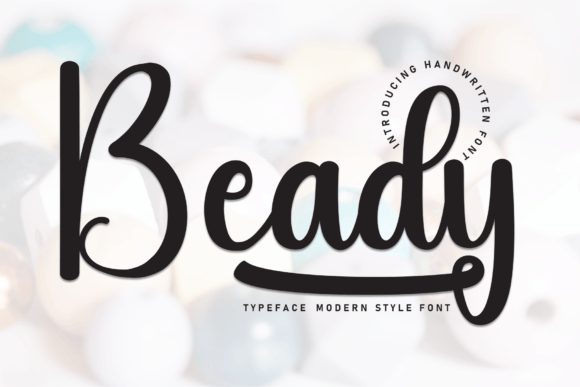
Unleash the Charm and Playfulness of Beady Font: Where Whimsy Meets Elegance
Introducing Beady Font, a captivating creation by Strongkeng Old, designed to bring a touch of friendly allure to your creative endeavors. This enchanting script font, adorned with its endearing curves and playful strokes, is the perfect companion for those seeking a font that radiates warmth and charm.
With its inherent versatility, Beady Font effortlessly adapts to a myriad of projects, seamlessly blending with your vision and style. Whether you're crafting a whimsical diary planner, journaling your heartfelt thoughts, or designing captivating invitations for that special occasion, Beady Font gracefully elevates your creations, leaving an indelible mark on the hearts of your audience.
Picture the joy of penning your musings in a diary adorned with Beady Font's friendly embrace, each word dancing across the page with a touch of whimsy and elegance. Its curves, reminiscent of a gentle breeze rustling through leaves, lend an air of intimacy and warmth, making your diary a cherished companion on your journey of self-expression.
Or, envision the magic of a wedding invitation adorned with Beady Font's enchanting allure. Its graceful strokes, reminiscent of a love story unfolding, set the tone for a celebration filled with joy, romance, and everlasting memories. As guests receive this exquisite invitation, they will be captivated by its charm, eagerly anticipating the beauty and elegance that awaits them on that special day.
With Beady Font as your creative ally, you possess the power to transform ordinary designs into extraordinary expressions of art. Its versatility shines in back-to-school projects, adding a touch of fun and personality to your child's learning journey. Party decorations come alive with Beady Font's playful spirit, creating an atmosphere of pure delight and celebration.
Unlock your creativity and embark on a journey of endless possibilities with Beady Font. Its friendly and lovely style will infuse your designs with a touch of magic, captivating your audience and leaving them utterly charmed. Add it to your font library today and witness the transformation it brings to your creative endeavors.